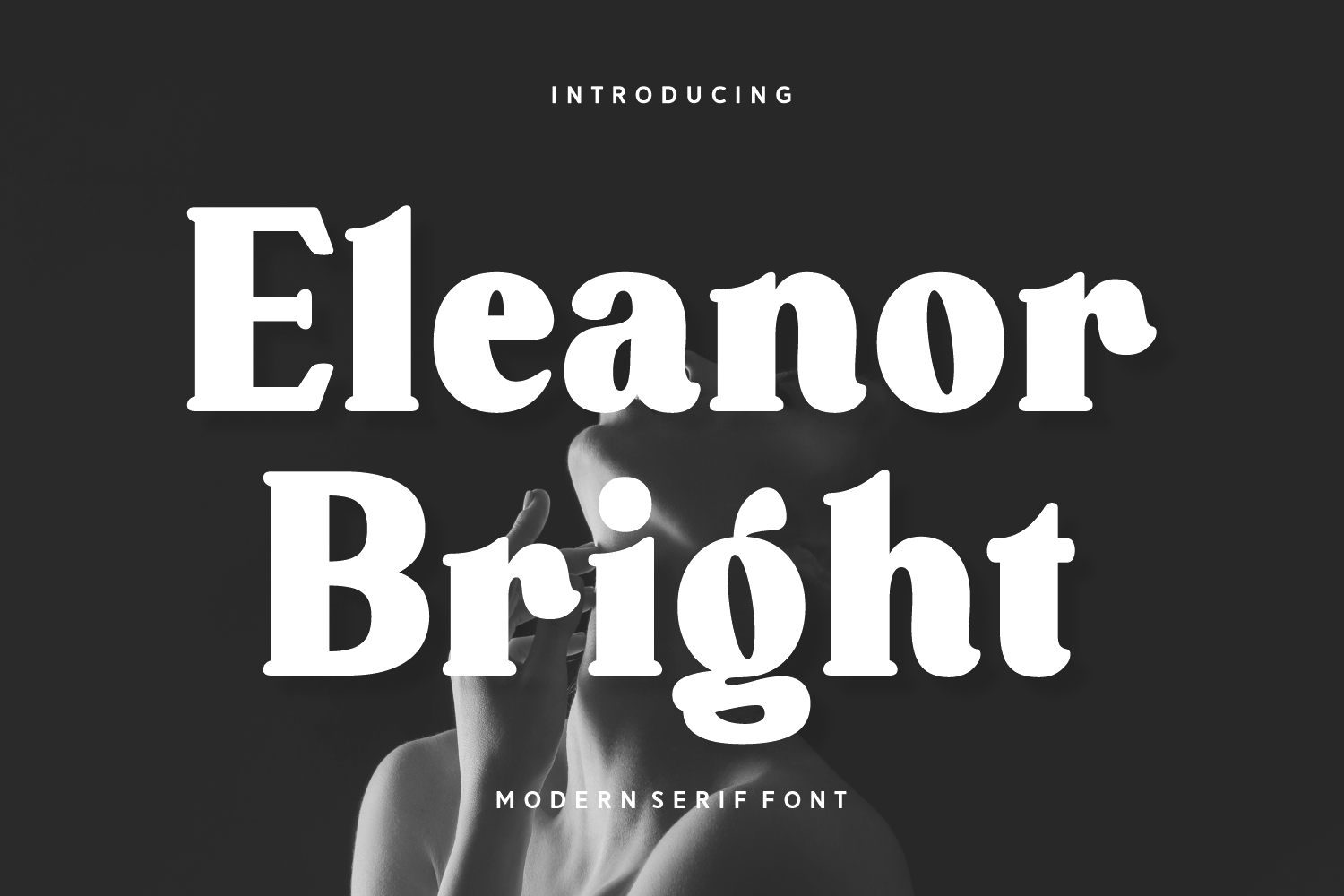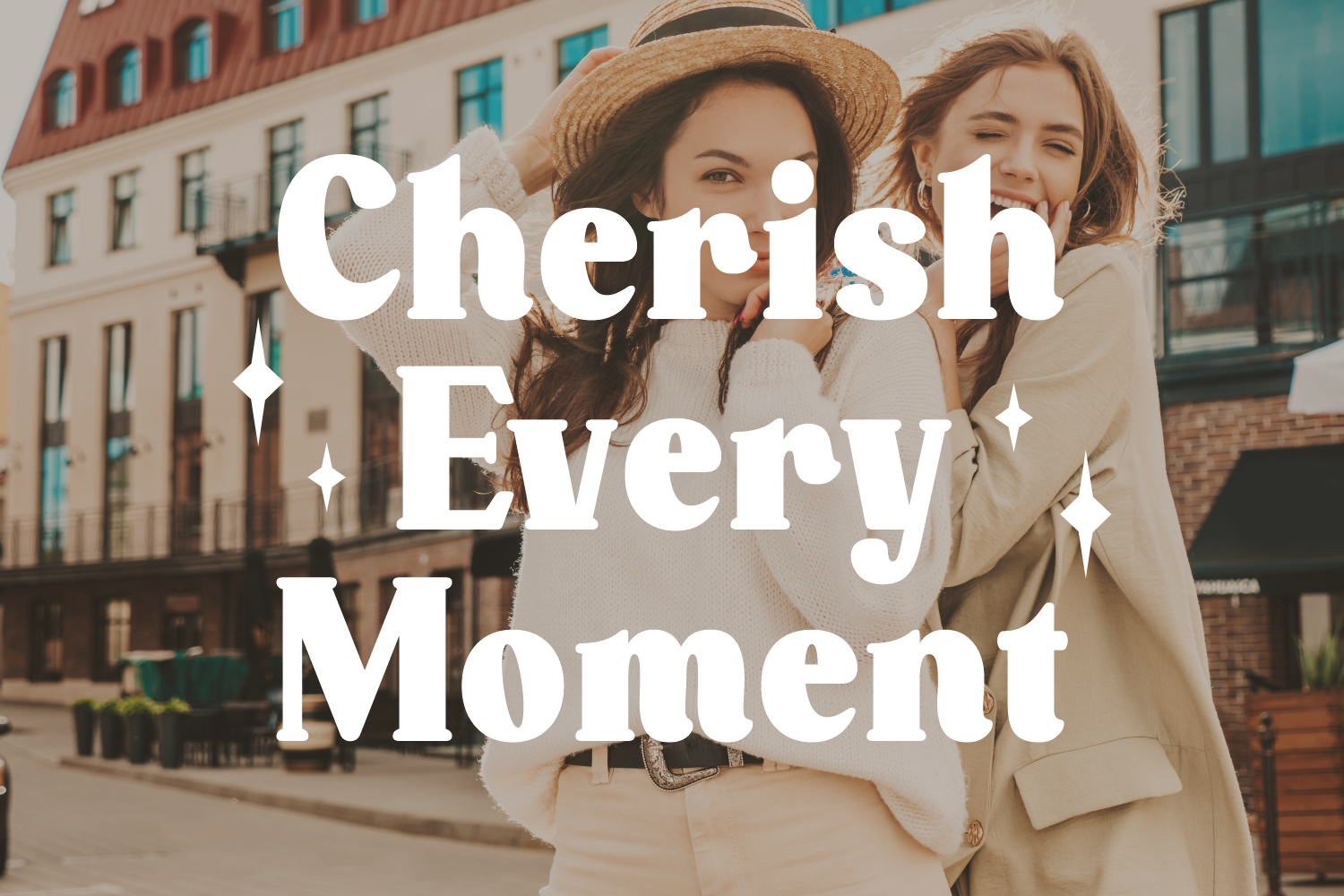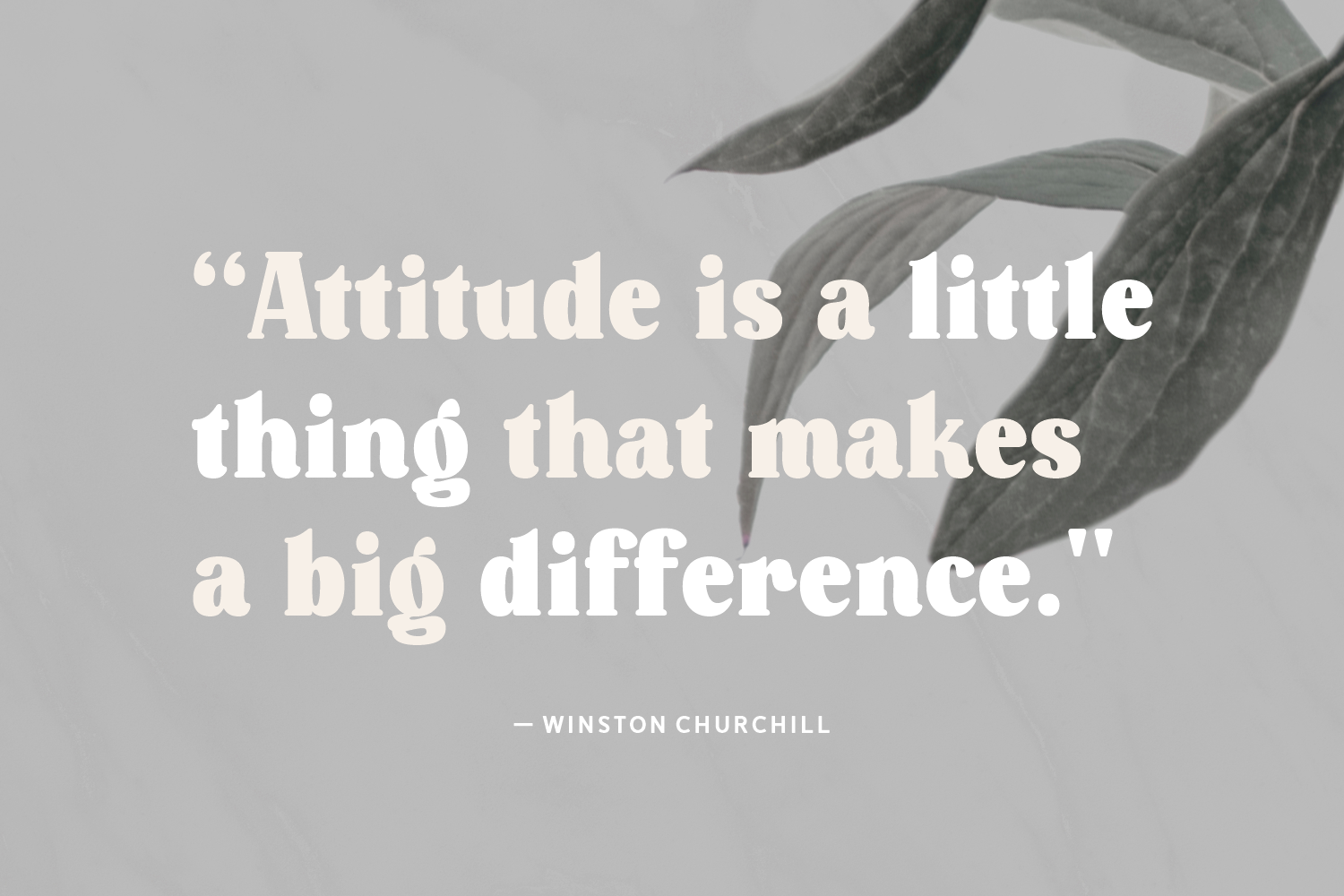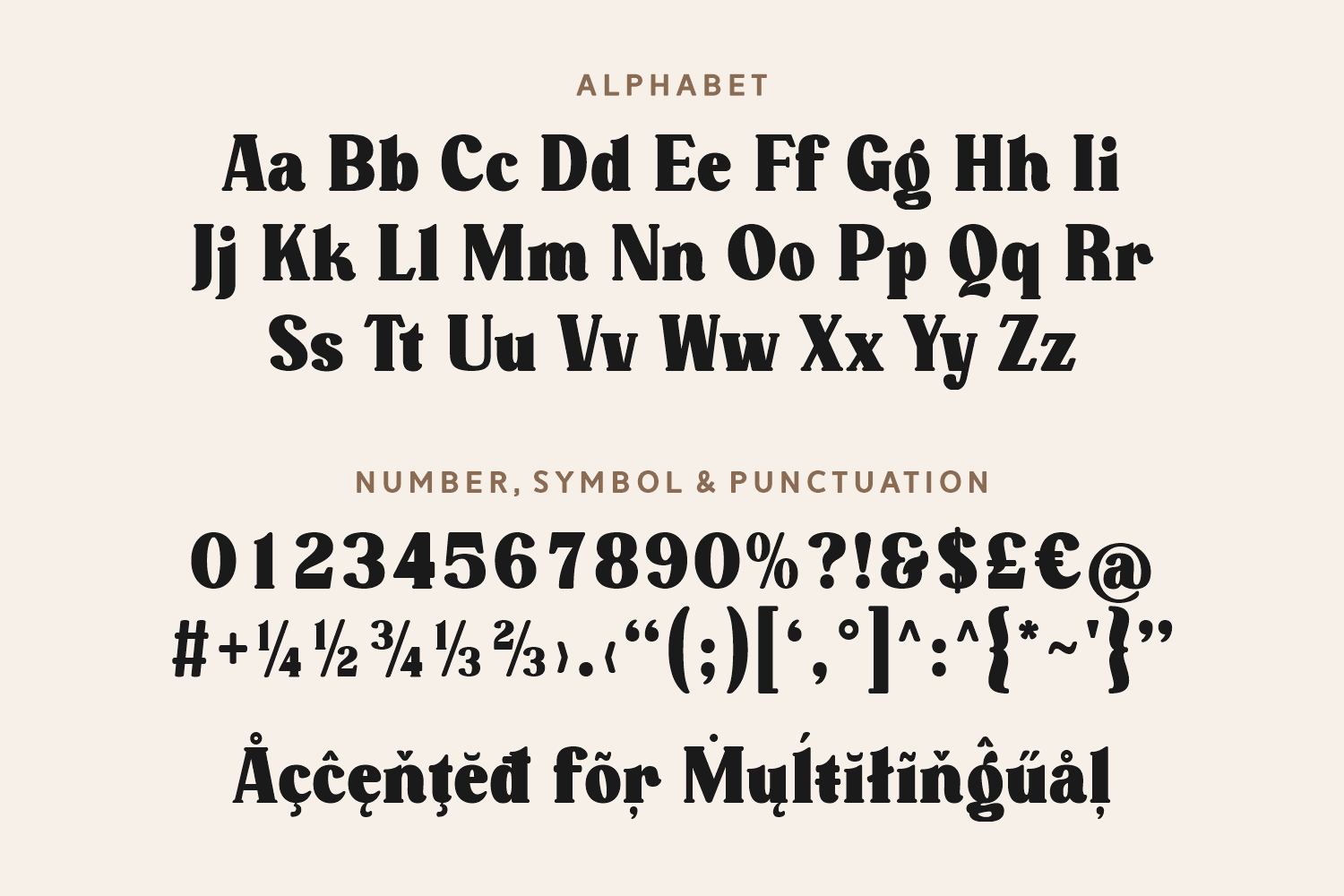
Eleanor Bright
Eleanor Bright is a bold, modern serif font that radiates confidence and charisma. With its thick strokes, high contrast, and playful yet refined curves, this typeface captures attention while maintaining readability and charm. The unique terminal shapes and sculpted serifs give it a personality that’s both retro-inspired and forward-thinking.
It supports multilingual characters and includes full punctuation, numerals, and stylistic ligatures, making it a versatile choice for creatives who want to leave a lasting impression.